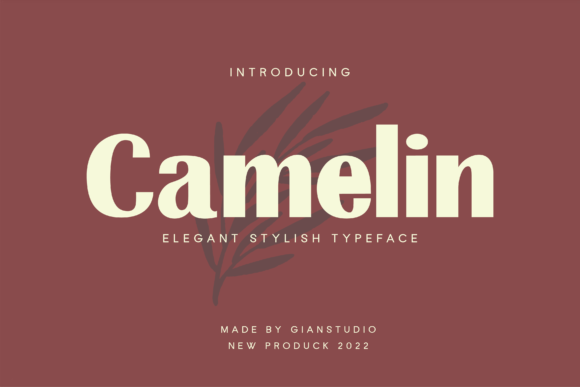
The Camelin Font: A Casual yet Stylish Game-Changer for Your Designs
I’ll never forget the time I was working on a branding project for a trendy coffee shop. I had spent hours perfecting the logo, but something was off. The font I had chosen just wasn’t doing justice to the quirky, laid-back vibe of the brand. That’s when I stumbled upon the Camelin font. It was love at first sight! 💕
With its casual yet stylish display font, Camelin instantly elevated the entire design. The outcome was astounding, and I knew right then that I had to share this gem with my fellow designers and creative hobbyists.
- 💥 **Instant Style**: Camelin adds a dash of personality to any design, making it perfect for projects that need a bit of flair.
- ✅ **Versatility**: This font works beautifully for titles, headings, and short paragraphs, making it a great addition to your font library.
- 🌈 **Readability**: Despite its stylized nature, Camelin remains surprisingly readable, even at smaller sizes.
- ⚠️ **Limited Use in Body Text**: While Camelin is amazing for display purposes, it’s not the best choice for lengthy body text. Its stylized nature can make it harder to read in large blocks.
- 🤔 **Kerning Issues**: As with any font, some users have reported minor kerning issues, particularly with certain letter combinations.
The Story Behind Camelin: Designer Inspiration
While the exact origins of Camelin are unclear, it’s likely that the font was designed with the intention of creating a stylish, yet approachable display font. Perhaps the designer wanted to craft a font that would evoke a sense of casual sophistication, perfect for creative projects that need a bit of personality.
Q: What type of projects is Camelin best suited for?
A: Camelin is perfect for projects that need a stylish, yet casual touch, such as branding, social media graphics, and creative blogs.
Q: Is Camelin a difficult font to read?
A: While Camelin is a stylized font, it’s surprisingly readable, even at smaller sizes. However, it’s still best suited for display purposes rather than lengthy body text.